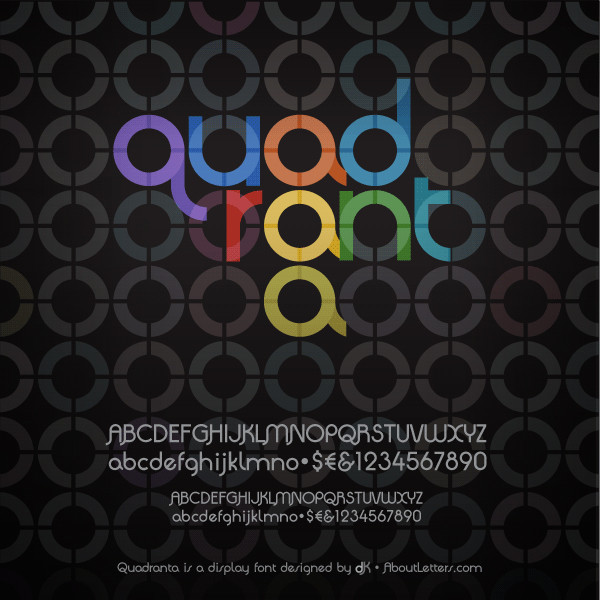
Very nice, I love the b, d, f ! j'aime beaucoup merci
pretty original. it's interesting how you formed some of the letters with 2 basic shapes
thanks. it's for stencils and was quite fun to make